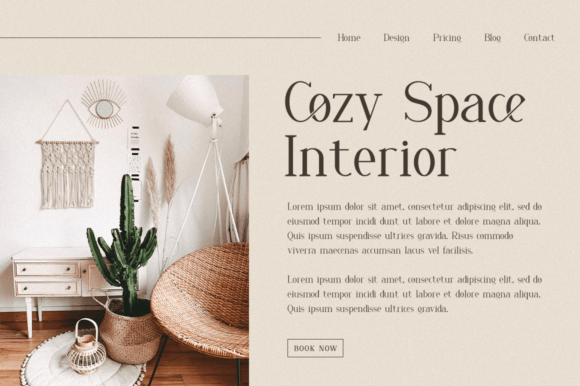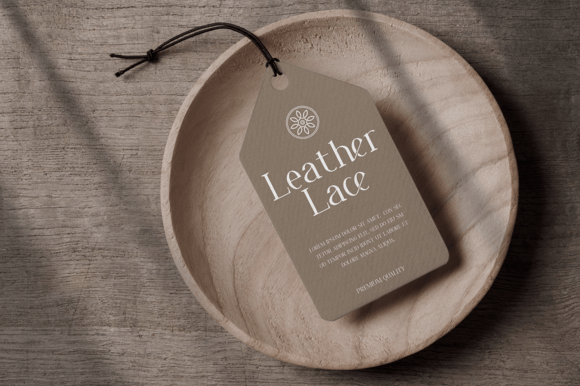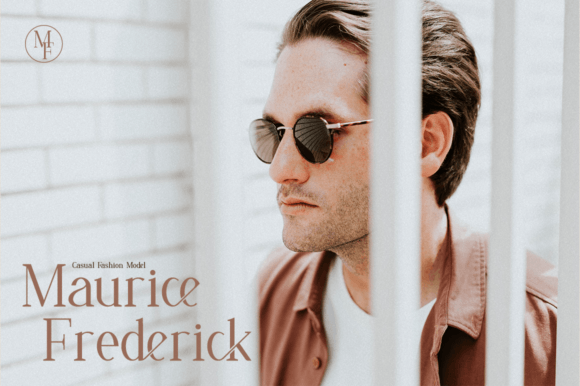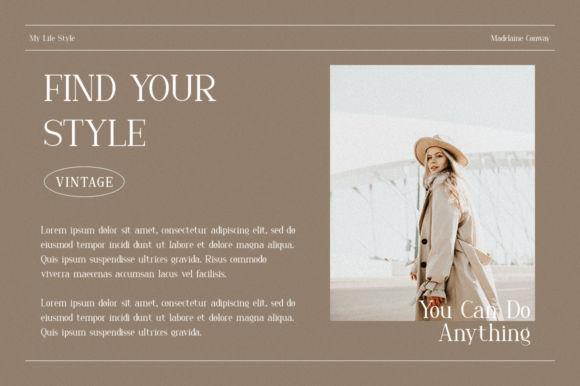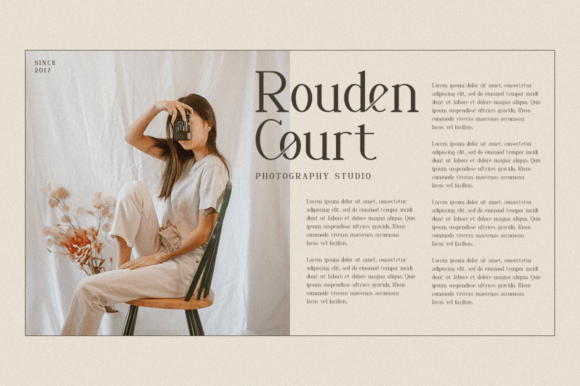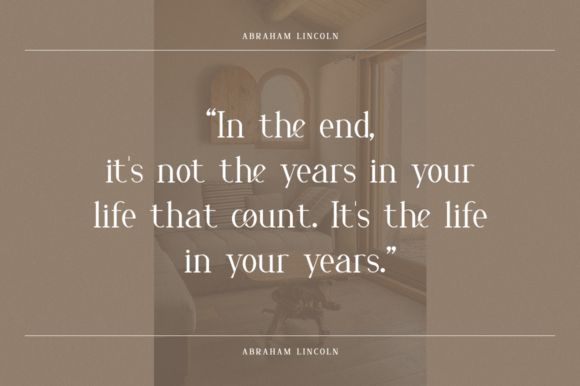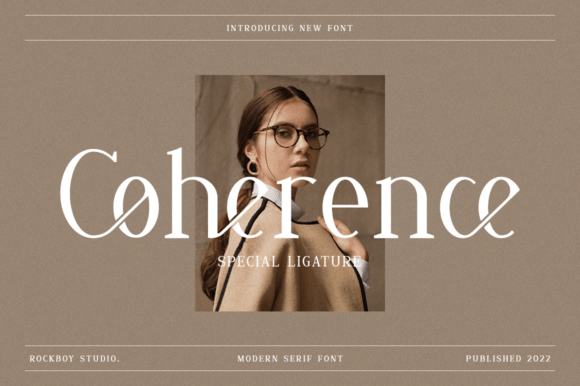
Introducing Coherence Font: Elevate Your Designs with Elegance and Sophistication
Are you tired of using the same old fonts in your designs? Look no further than Coherence Font, an elegant and thin-lettered serif font that’s sure to take your projects to the next level. With its classy calligraphic influences and contemporary feel, Coherence Font is the perfect choice for designers and crafters looking to add a touch of sophistication to their work.
The Characteristics of Coherence Font
Coherence Font is a unique and beautiful font that boasts a range of characteristics that set it apart from other fonts. Its thin-lettered serif design gives it a sleek and modern look, while its calligraphic influences add a touch of elegance and refinement. The font is highly legible, making it perfect for use in a variety of design projects, from luxury branding and advertising to packaging and editorial design.
The Benefits of Using Coherence Font
• Elegance and sophistication: Coherence Font adds a touch of class and refinement to any design project, making it perfect for luxury brands and high-end products.
• Versatility: With its clean and simple design, Coherence Font can be used in a wide range of design projects, from print and digital media to packaging and advertising.
• Legibility: Coherence Font is highly legible, even at small sizes, making it perfect for use in body text and other applications where readability is key.
• Uniqueness: Coherence Font is a unique and distinctive font that will help your design stand out from the crowd.
How to Use Coherence Font in Your Designs
• Pair it with bold fonts: Coherence Font looks great when paired with bold, sans-serif fonts. Try using it in combination with a bold font to create visual interest and contrast.
• Use it for headlines and titles: Coherence Font is perfect for use in headlines and titles, where its elegant and refined design can really shine.
• Experiment with different colors: Coherence Font looks great in a wide range of colors, from classic black and white to bold and bright hues. Experiment with different colors to find the perfect look for your design.
Coherence Font in the World of Design
• Luxury branding: Coherence Font is perfect for luxury brands looking to create a sophisticated and refined visual identity.
• Editorial design: Coherence Font is well-suited to editorial design, where its legibility and elegance make it perfect for use in magazines, newspapers, and other publications.
• Packaging design: Coherence Font can add a touch of elegance and sophistication to packaging design, making it perfect for high-end products and luxury brands.
In conclusion, Coherence Font is a beautiful and elegant font that’s perfect for designers and crafters looking to add a touch of sophistication to their work. With its classy calligraphic influences and contemporary feel, Coherence Font is sure to take your designs to the next level. Whether you’re working on a luxury branding project, an editorial design project, or a packaging design project, Coherence Font is a great choice. So why not give it a try and see the difference it can make?
Key Features of Coherence Font
• Elegant and thin-lettered serif font
• Classy calligraphic influences
• Contemporary and fresh feel
• Highly legible
• Perfect for luxury branding, editorial design, and packaging design
Coherence Font is an elegant and thin-lettered serif font. It maintains its classy calligraphic influences while feeling contemporary and fresh. Fall in love with it and bring your projects to the highest levels!